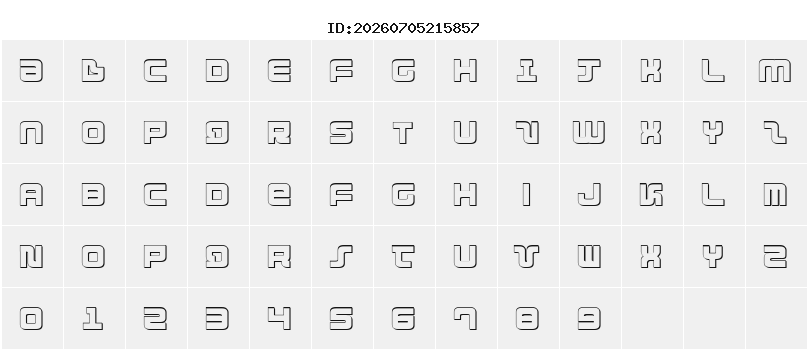
• Font Name: Direktor 3D
• Full Font Name: Direktor 3D
Direktor 3D.ttf is a modern, elegant sans-serif font designed for ultimate readability and visual harmony. Perfect for branding, headlines, web design, and print materials.